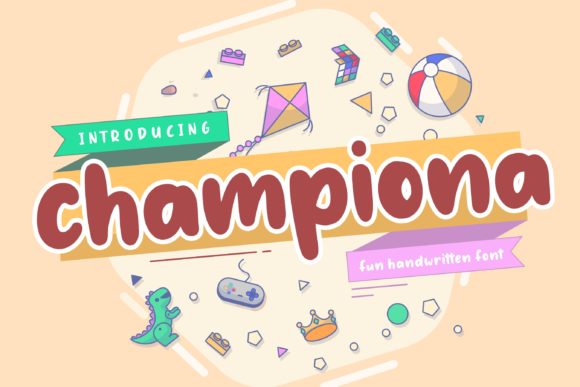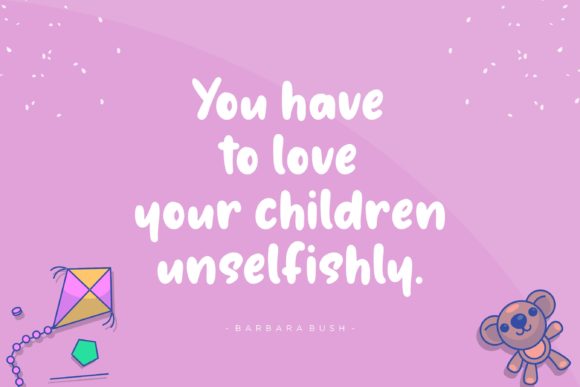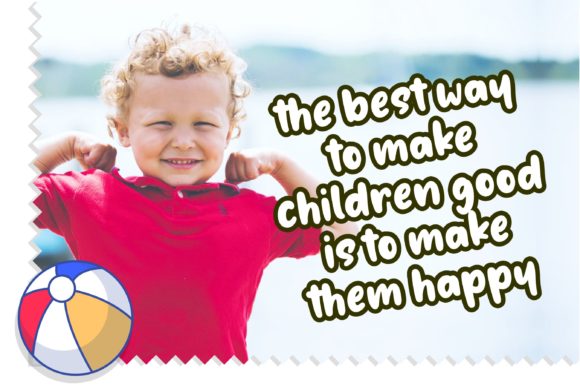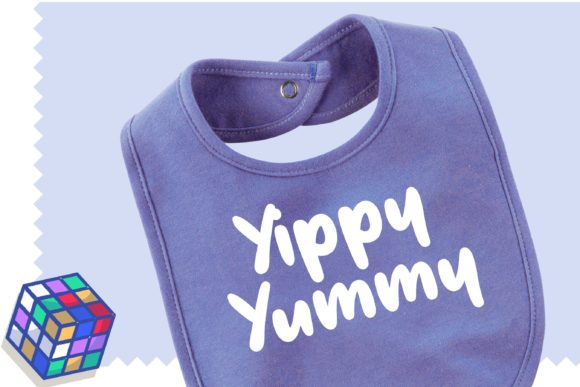
Championa Fun Handwritten Font
About Championa Fun Handwritten Font
Championa is a bold handwritten font, carefully handcrafted to become a true favorite. Its casual charm makes it appear wonderfully down-to-earth, readable and, ultimately, incredibly versatile. Championa will look outstanding in any context, whether it’s being used on busy backgrounds or as a standalone headline!